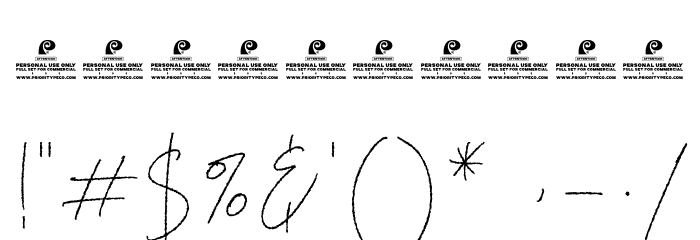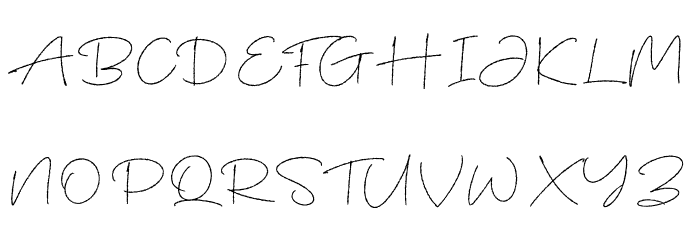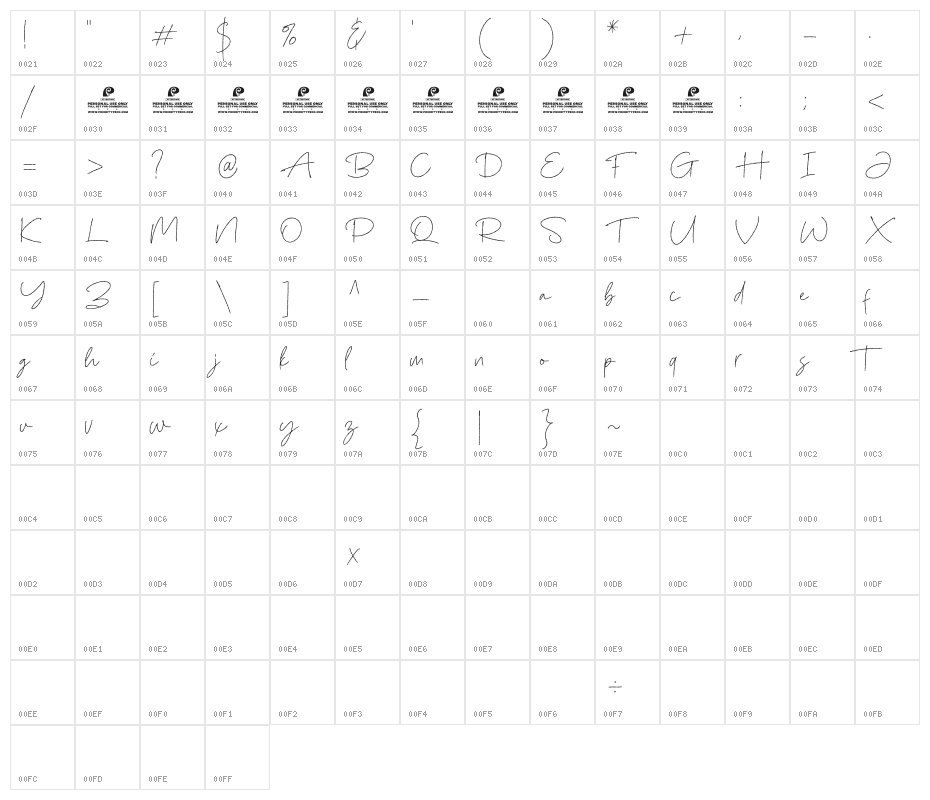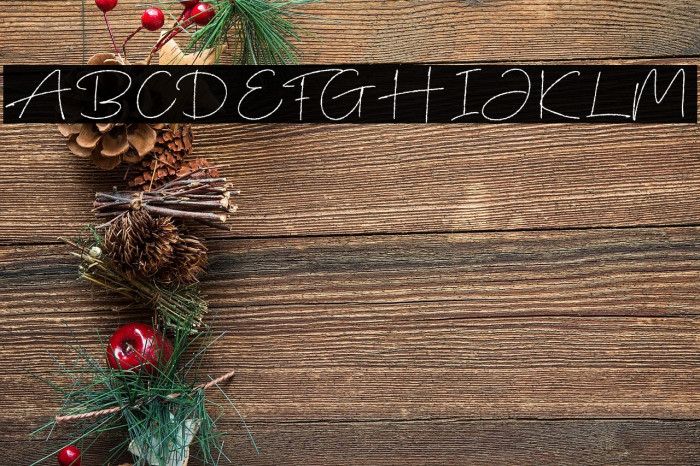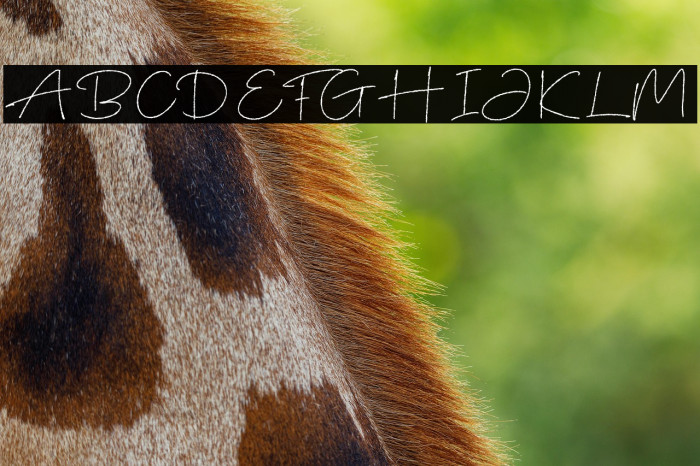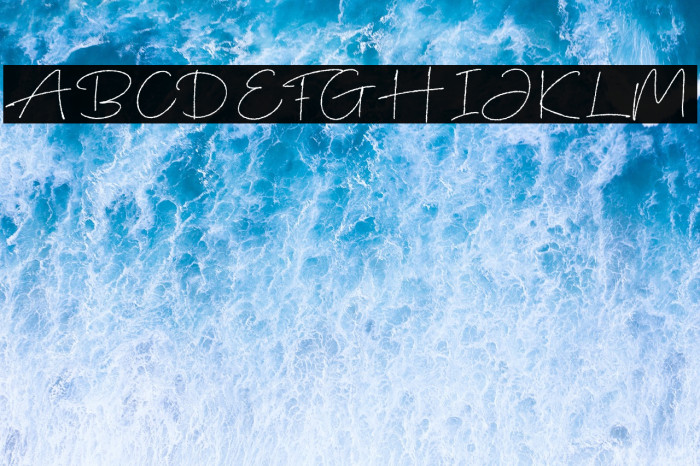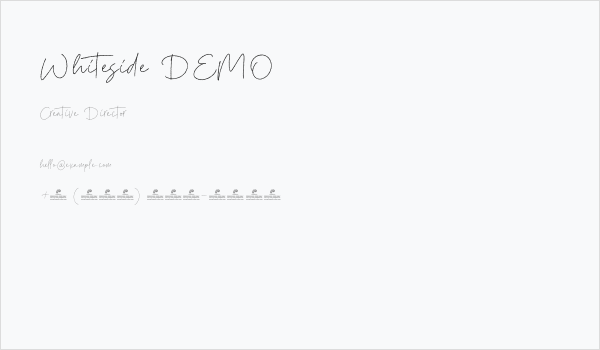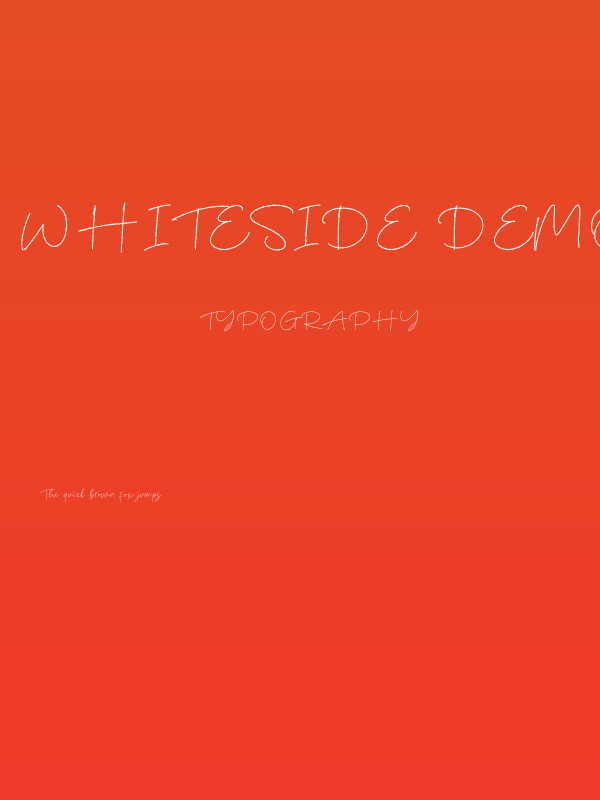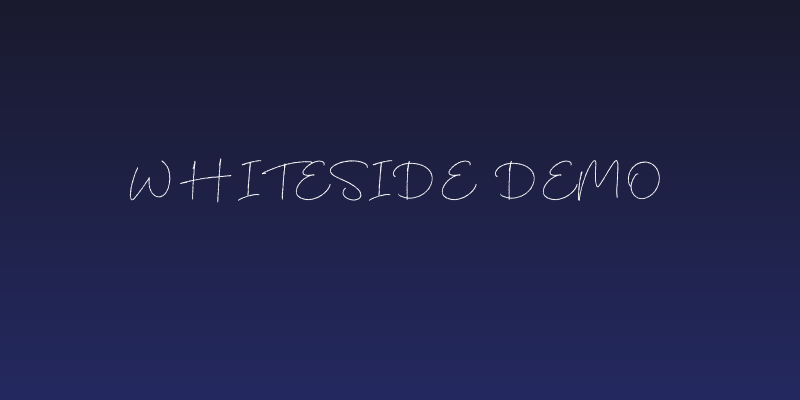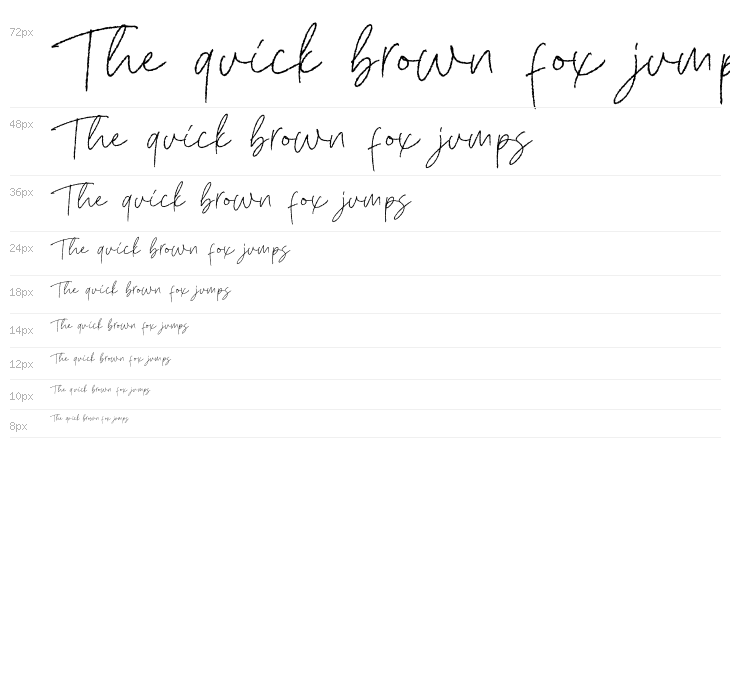
Whiteside DEMO Font
Whiteside DEMO Description
This font features a casual, handwritten style with a playful and artistic flair. The characters are slightly slanted, giving it a dynamic and lively appearance. The strokes are uneven, mimicking the natural flow of handwriting, which adds a personal touch to any design. The uppercase letters are tall and slender, while the lowercase letters maintain a consistent height, enhancing readability. The special characters are creatively integrated, maintaining the overall aesthetic of the font. This font is ideal for projects that require a personal, informal, or creative touch.
| Overall Style | Casual, Artistic |
| Proposed Projects | Ideal for greeting cards, personal branding, creative invitations, and artistic posters. |